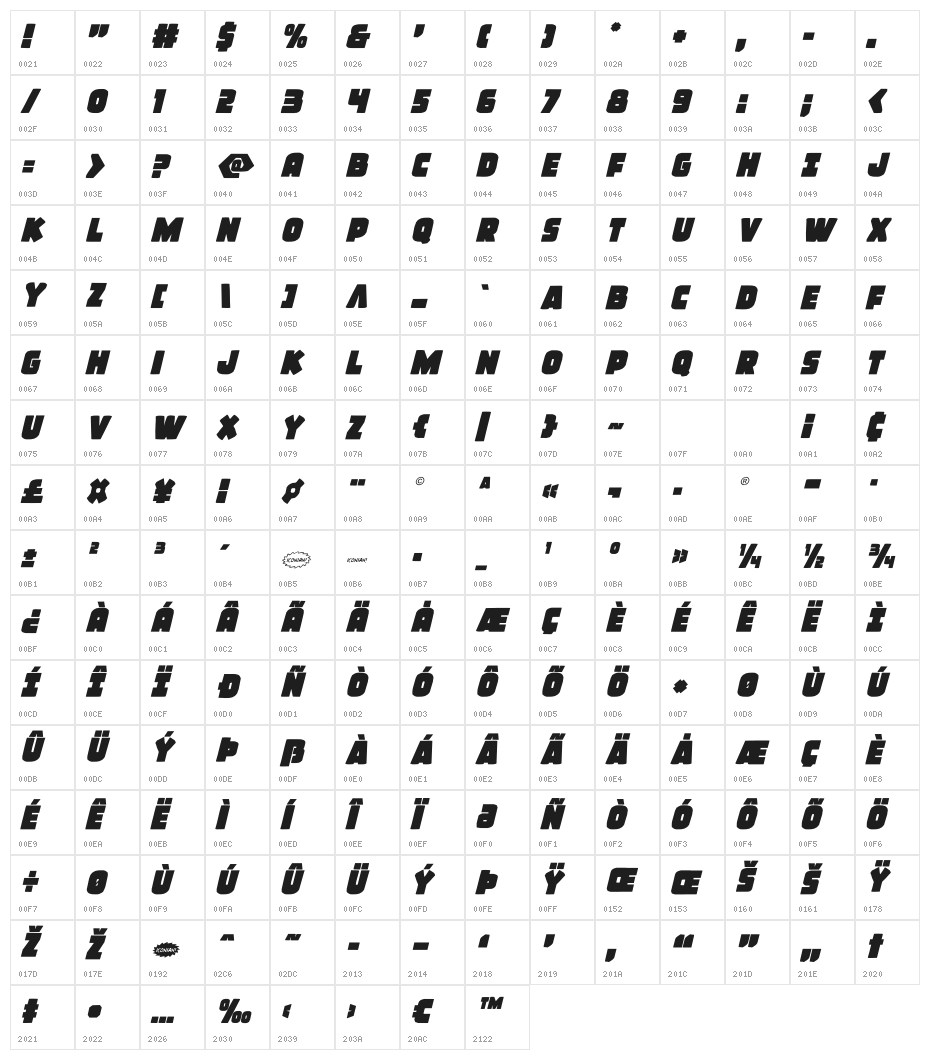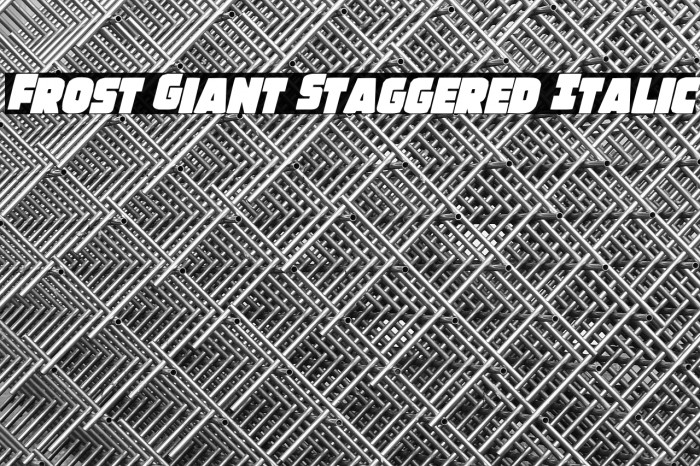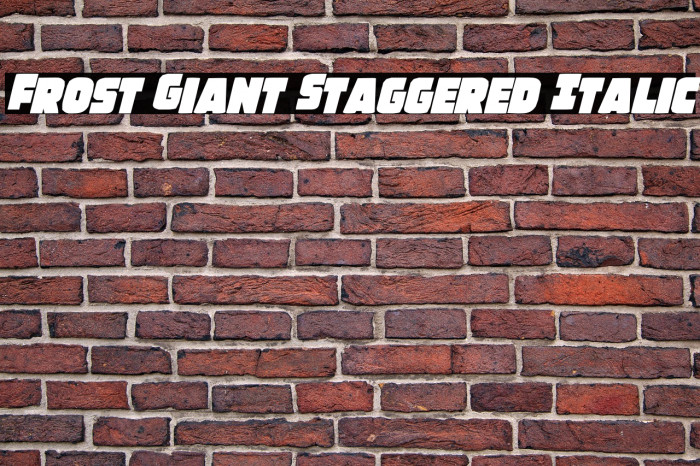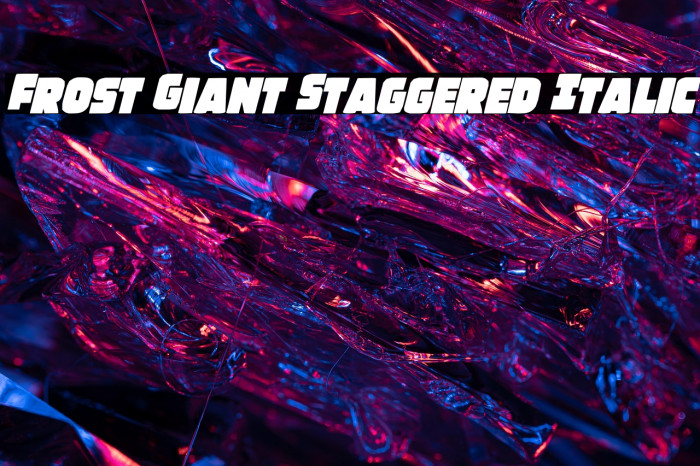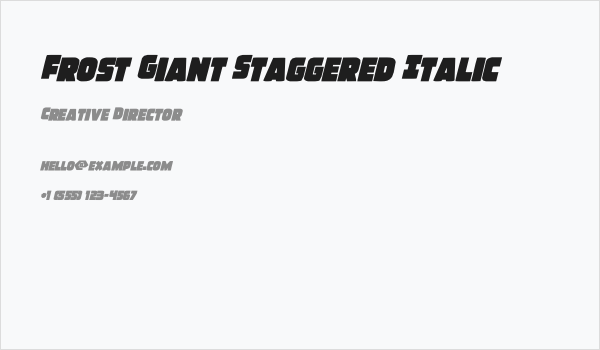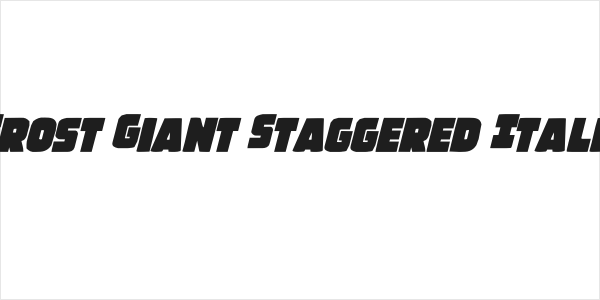
Frost Giant Staggered Italic Font
Frost Giant Staggered Italic Description
This bold and dynamic font features a staggered italic style that gives it a sense of movement and energy. The characters are robust and heavily weighted, with a strong presence that demands attention. The angular design and thick strokes create a powerful visual impact, making it ideal for projects that require a bold statement. The font's unique style is both modern and slightly futuristic, with a touch of aggression that can be used to convey strength and confidence. Its distinct appearance makes it suitable for a variety of creative applications.
| Proposed Projects | Ideal for sports branding, action movie posters, video game titles, and dynamic advertising campaigns. |